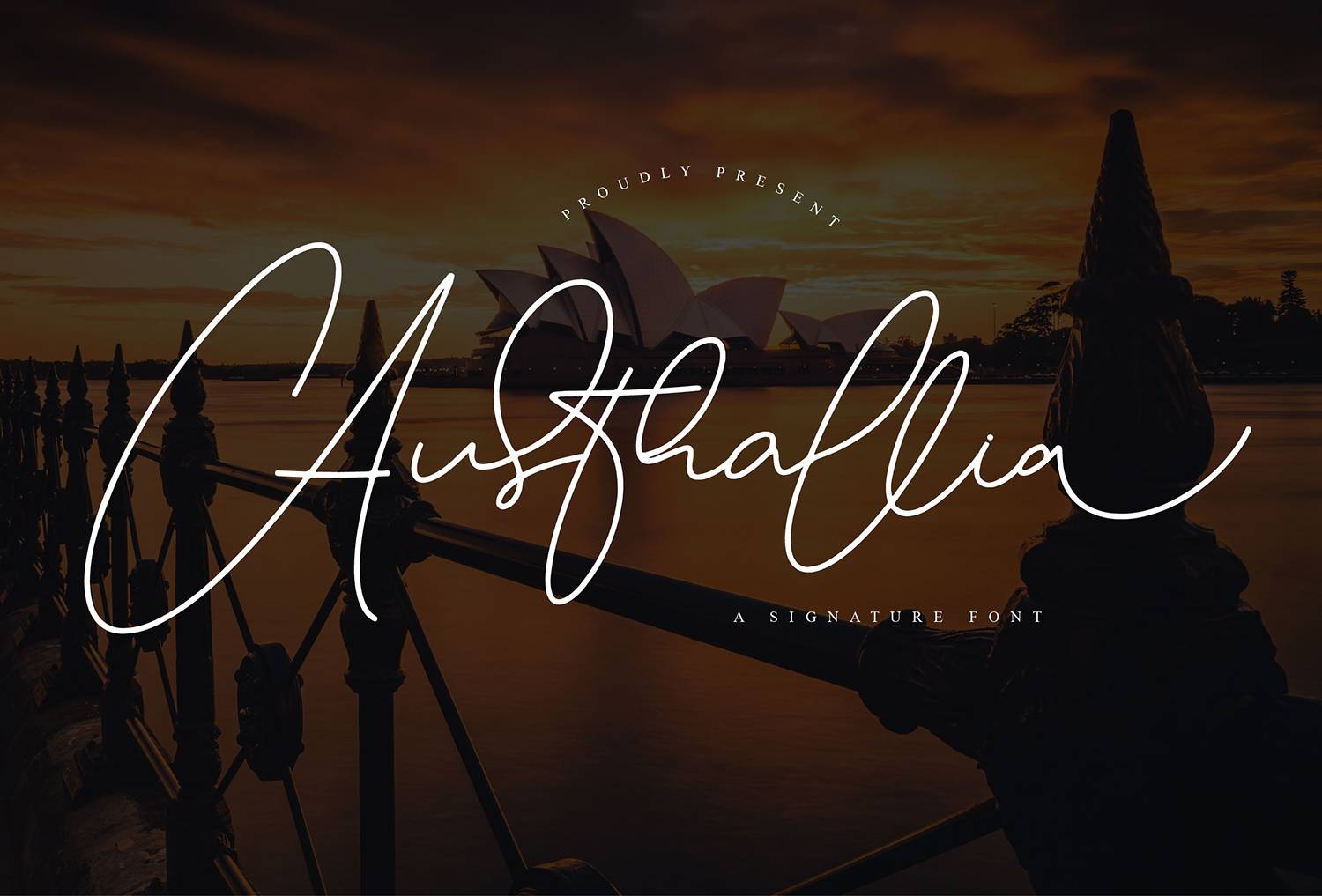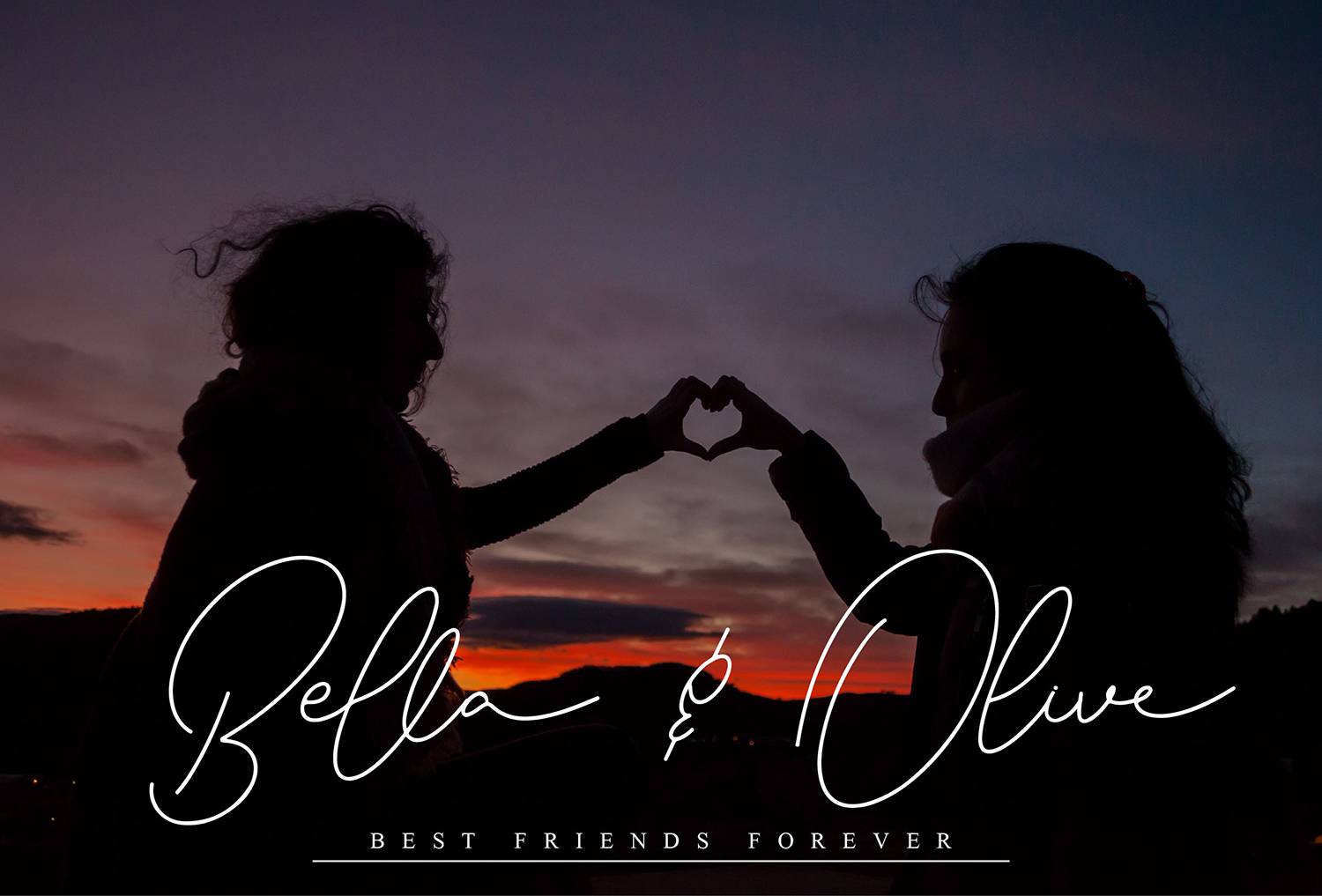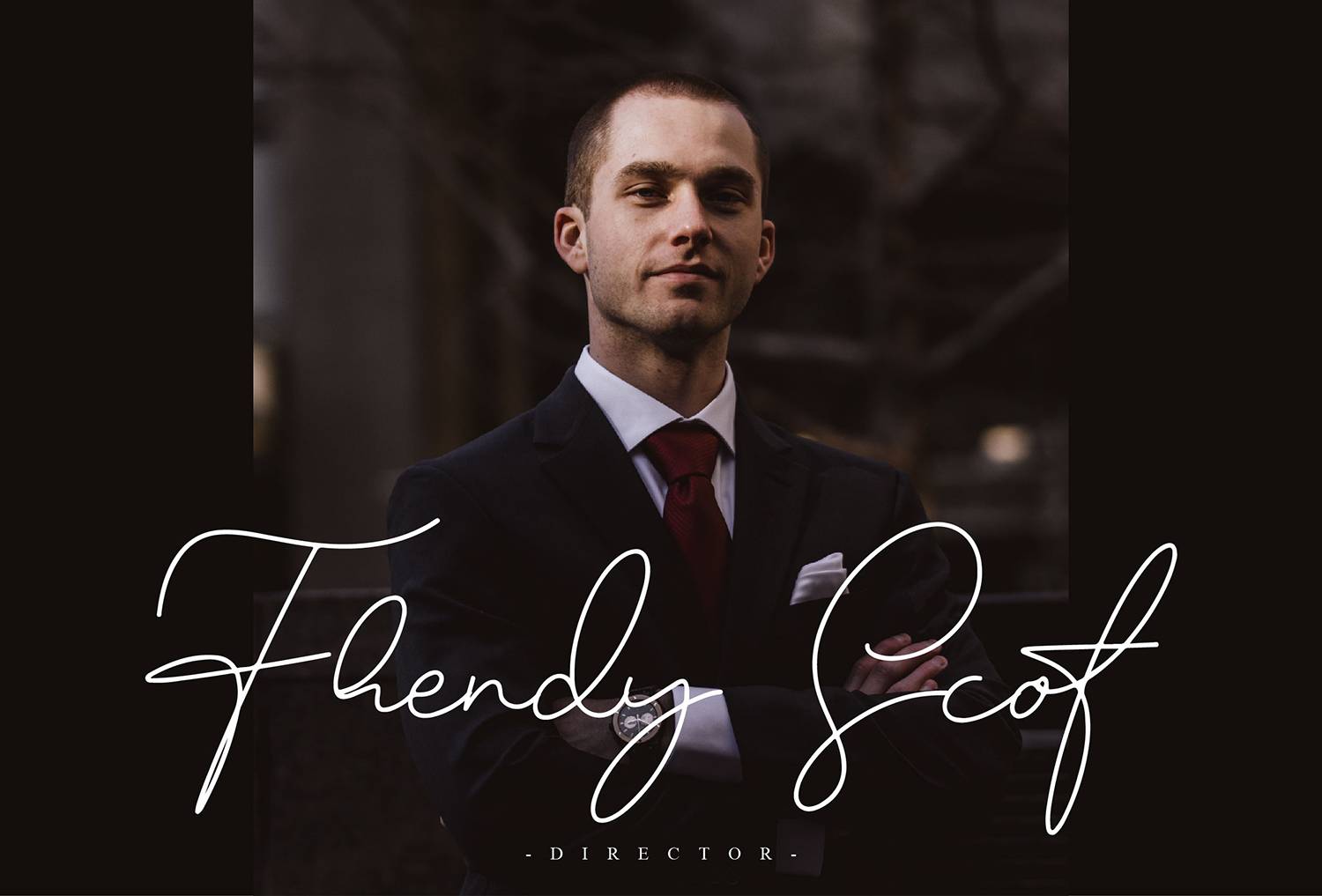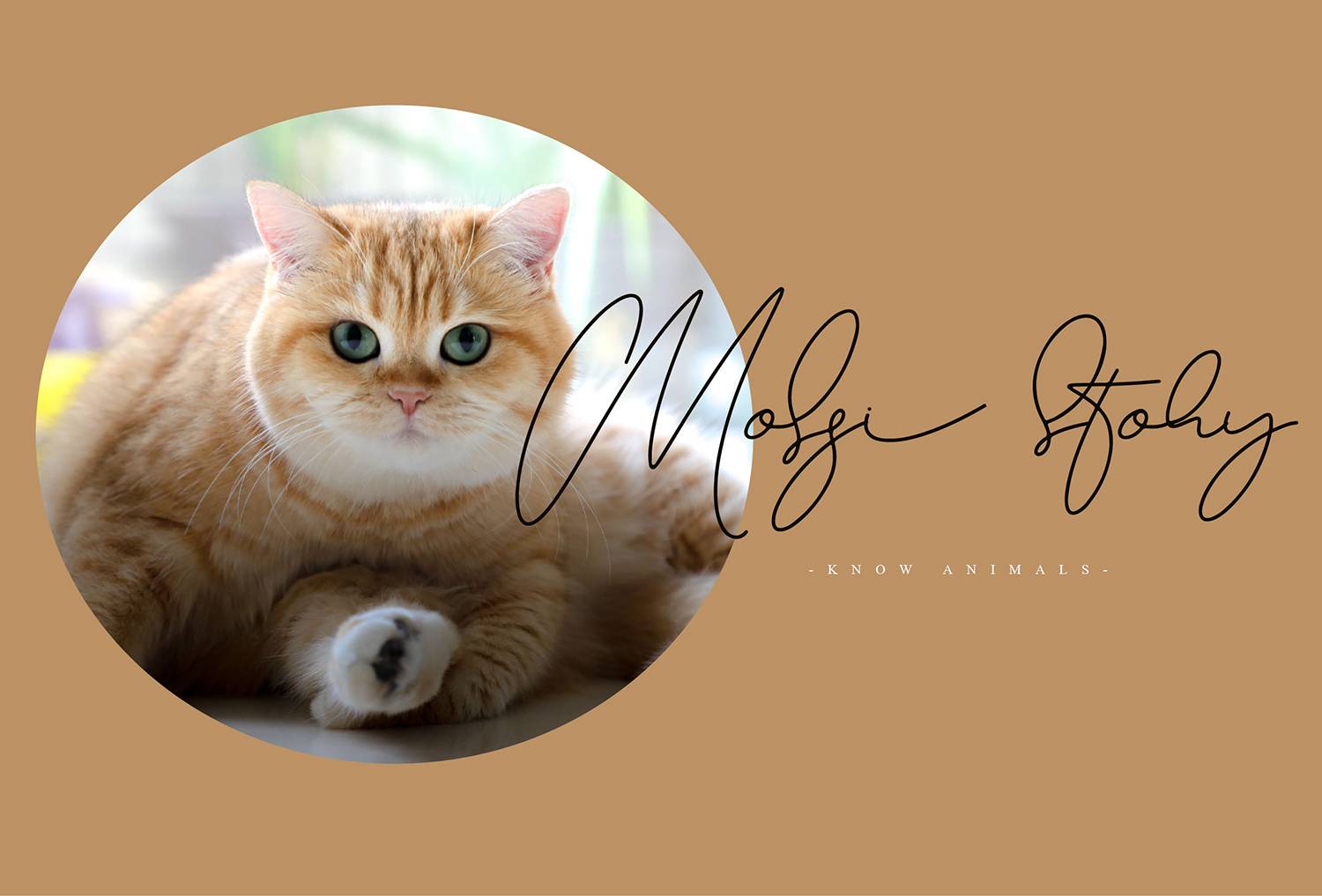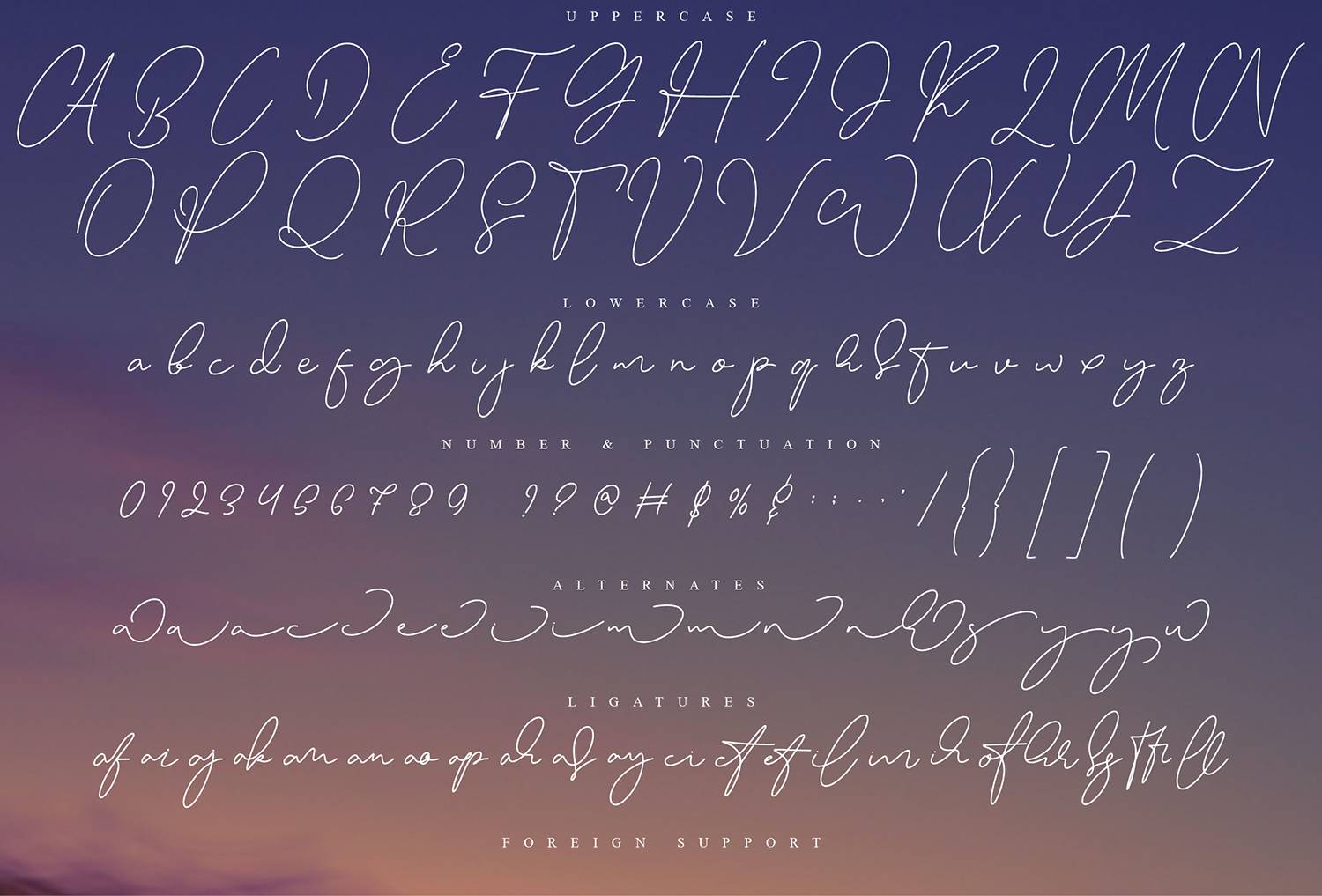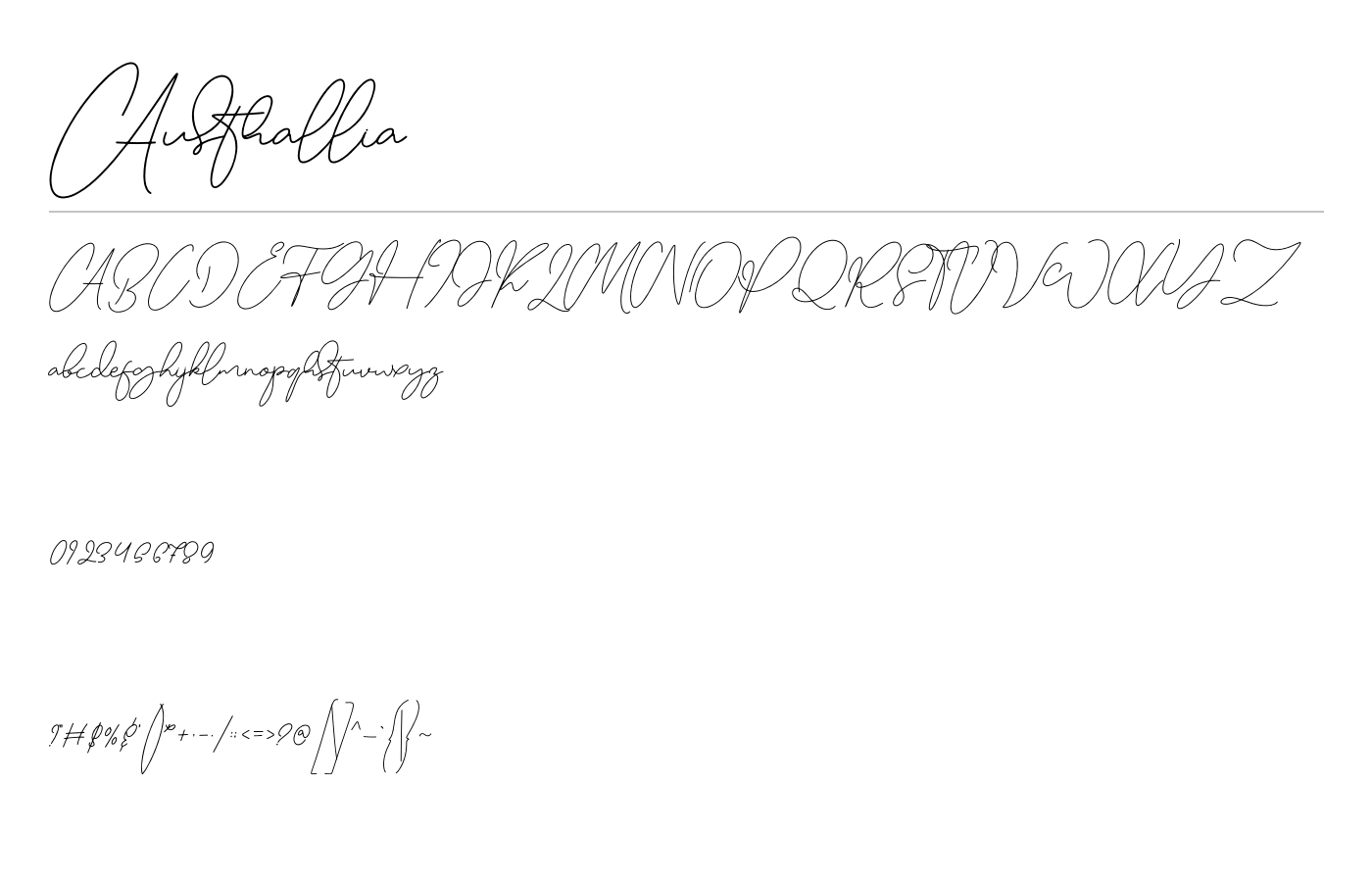
Australlia is a delicate, elegant script font characterized by its fine, flowing lines and graceful, handwritten style. It features tall, slender letterforms with a smooth, continuous stroke that imparts a sophisticated and personal touch, making it ideal for invitations, branding, and projects that seek a refined, artistic flair. This font works beautifully in designs that require a sense of elegance and intimacy without overwhelming the overall layout.
Australlia Font
About Australlia Font
| Font family | Australlia Font |
| Designer | AHKMAD RIYAN DANUARTA |